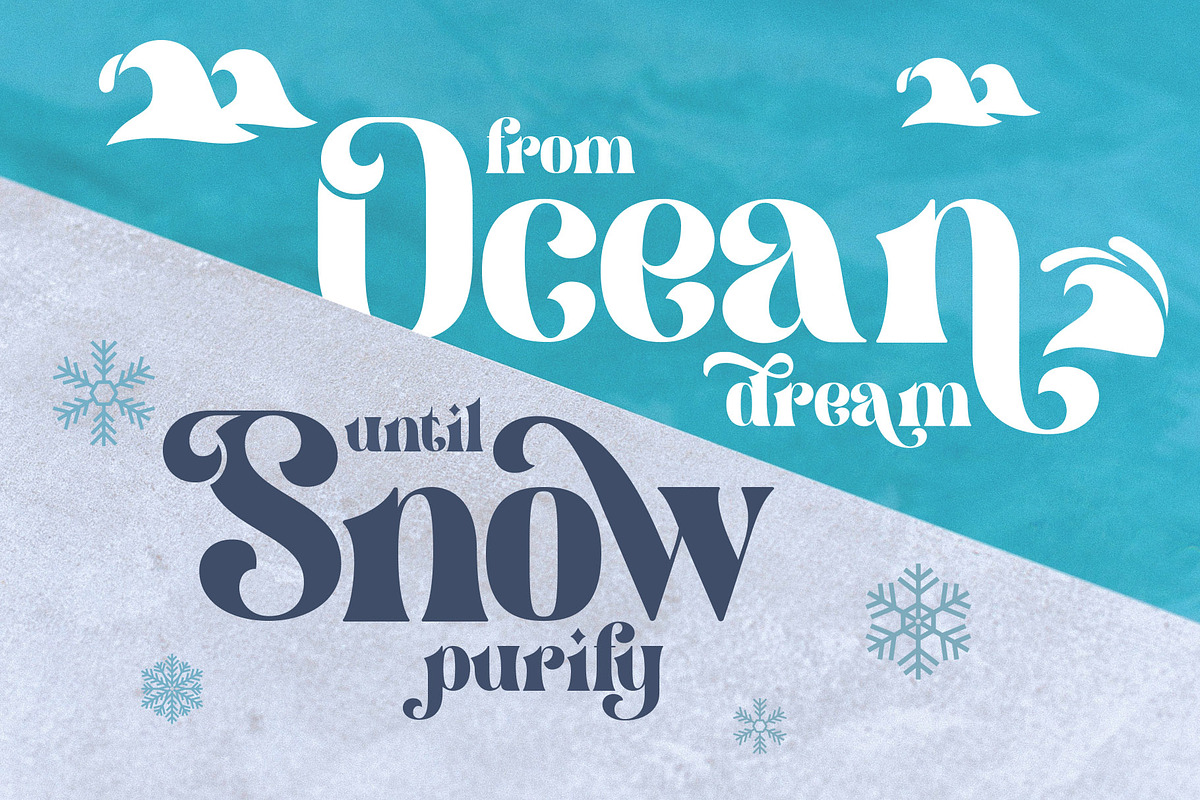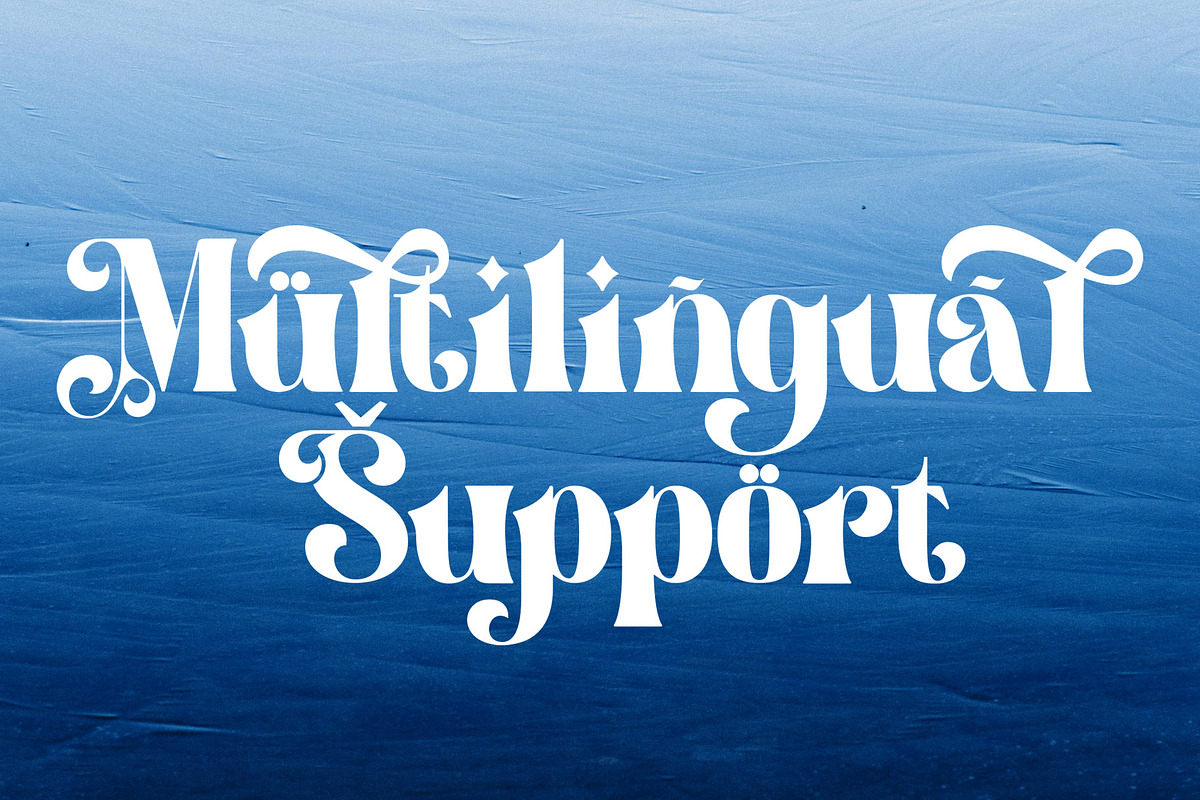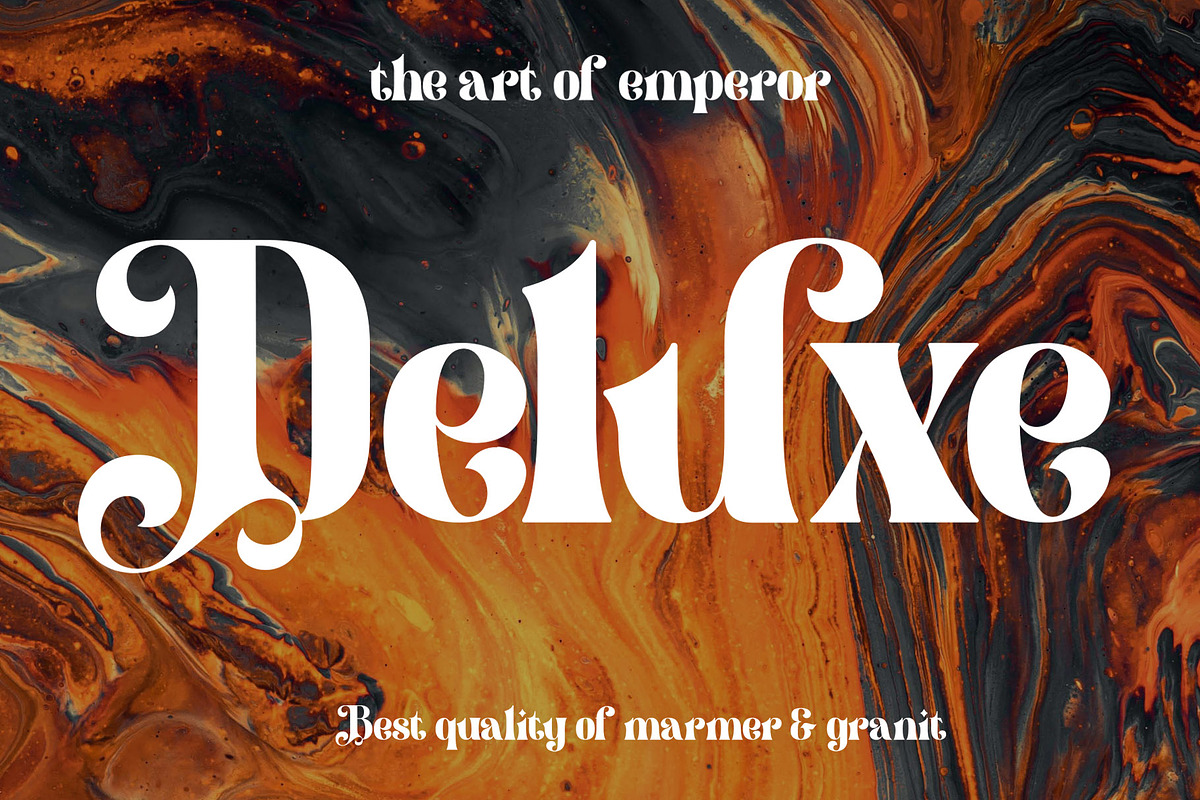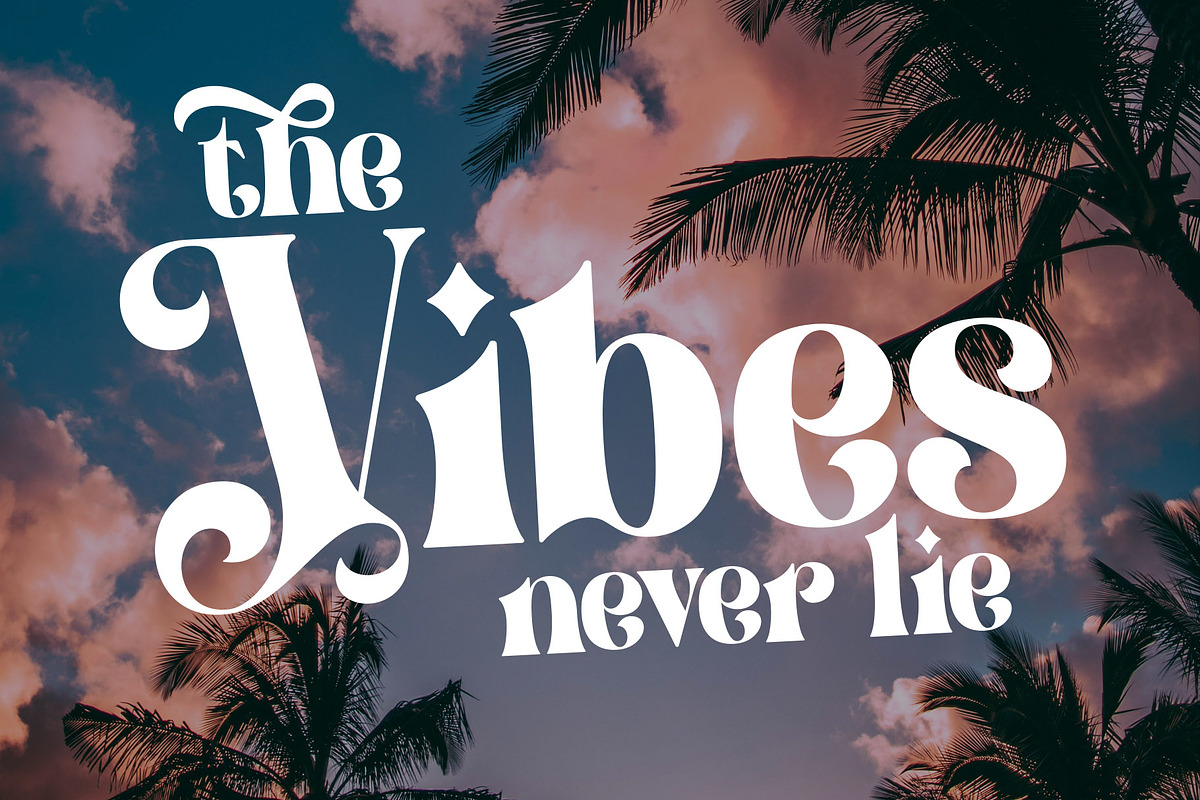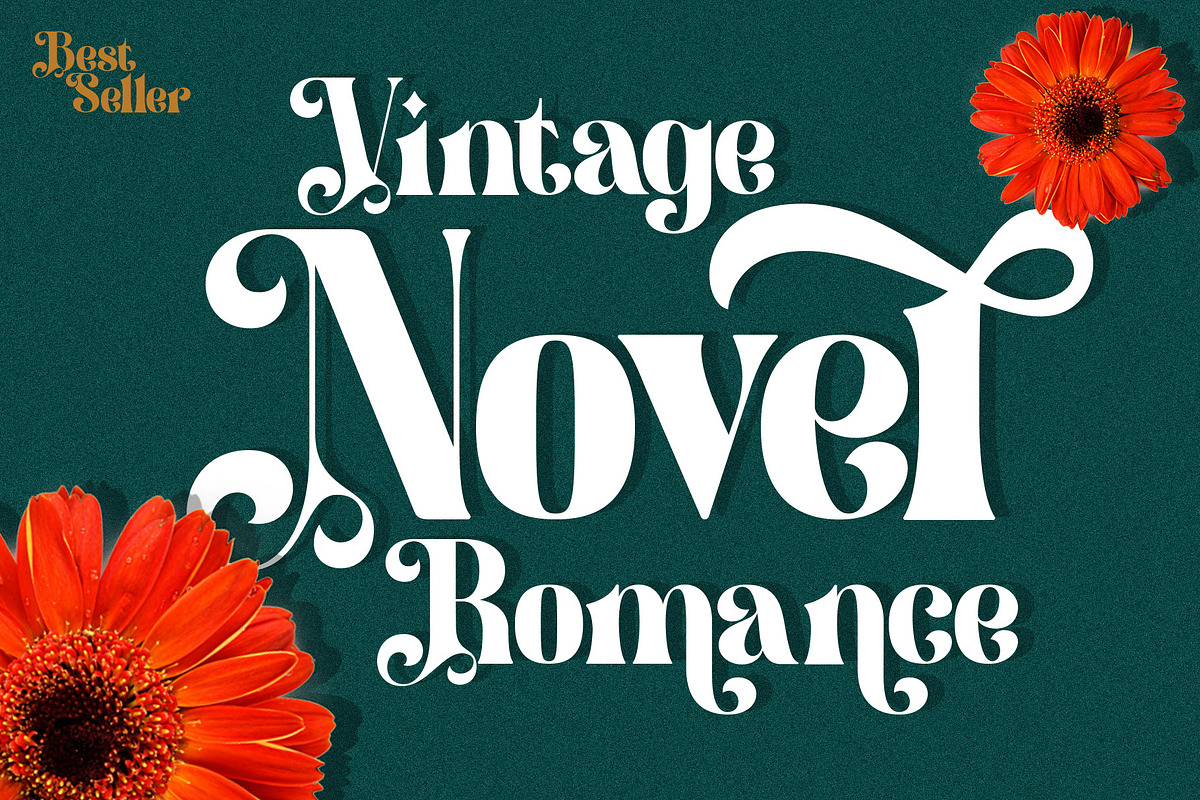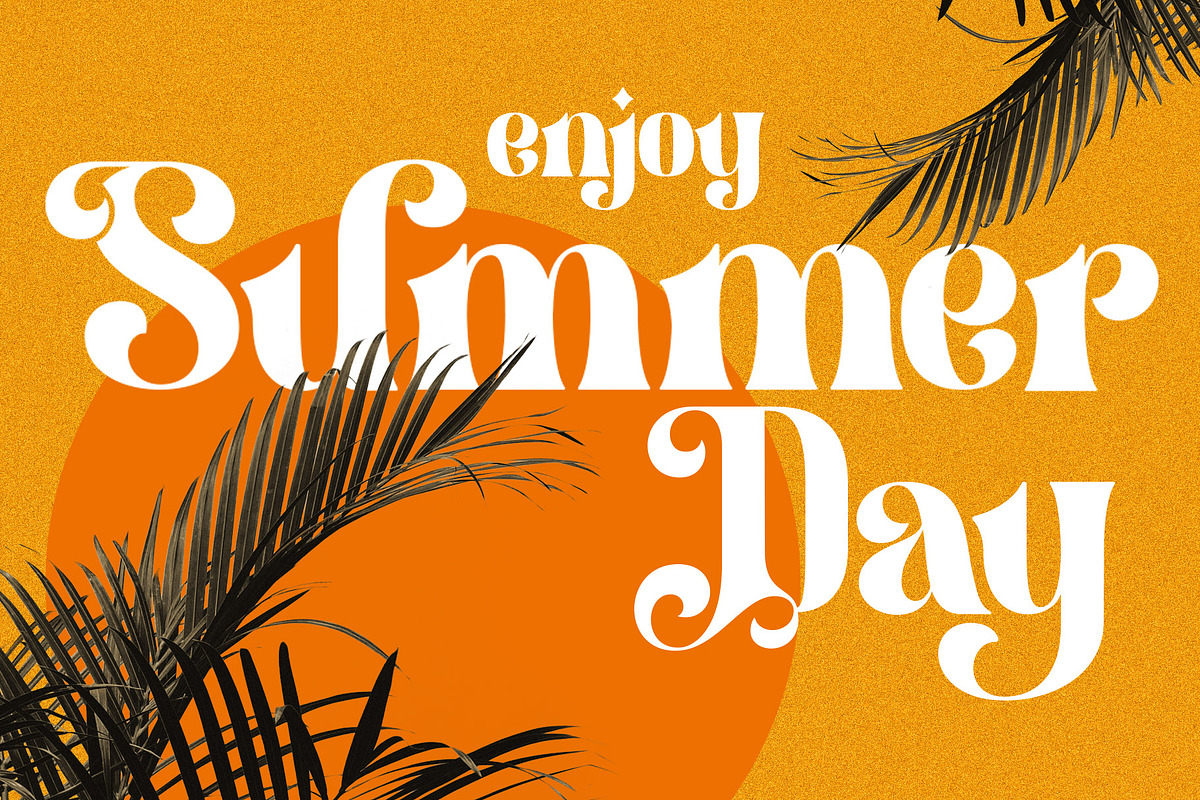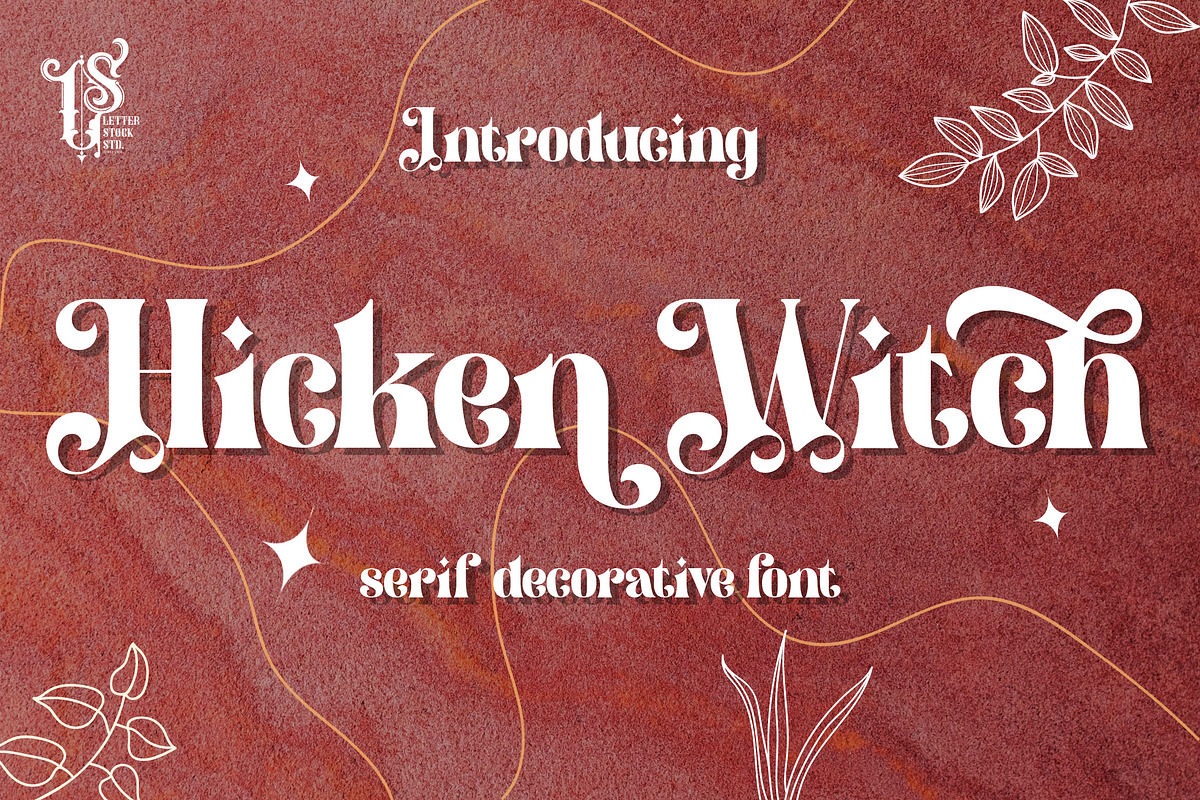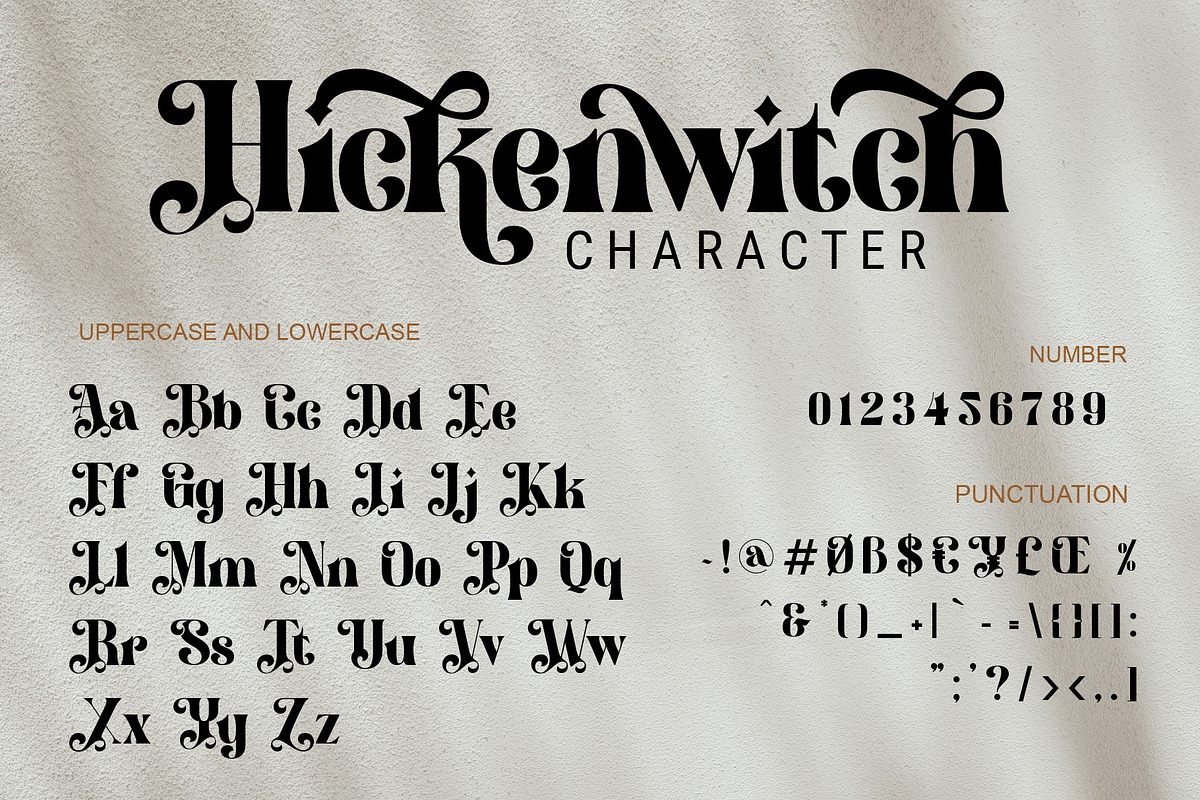
Hicken Witch
This pair was inspired by vintage flyer that i saw few weeks ago, it was crafted by hand specially to add natural handmade feeling in its brand identity than i make it clean with pentool.
Opentype features
Hicken Witch font has 209 character set included. This font is very good for design logo, labels, packaging product, invitations, advertising and others. This font will make your design authentic, unique and good looking with modern calligraphy style.
If you're looking for unique serif decorative font, this item is a great choice to make your design looks great and unique.